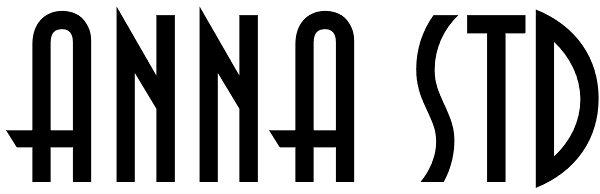
ITC Anna
ITC Anna may seem to evoke an earlier typographic style. Be assured, though, that Daniel Pelavins 1990 design is a new display typeface, his very personal interpretation of Art Deco. He originally drew it to use for his wedding announcement...